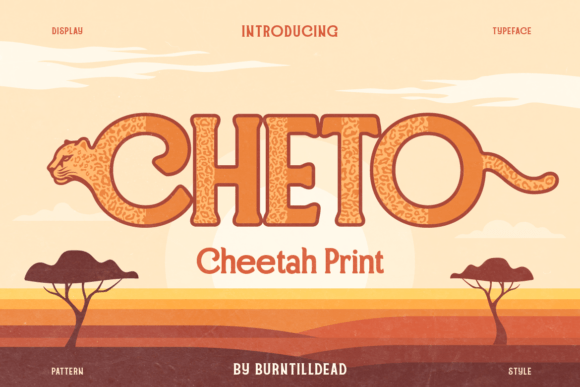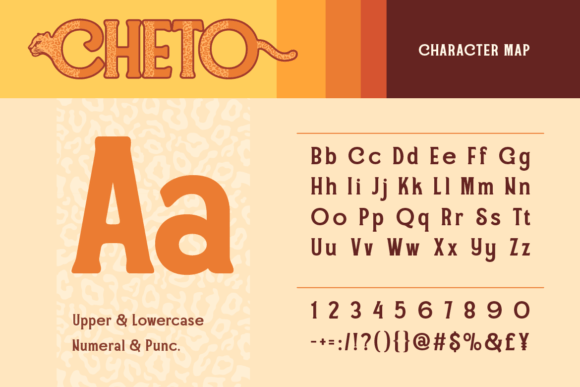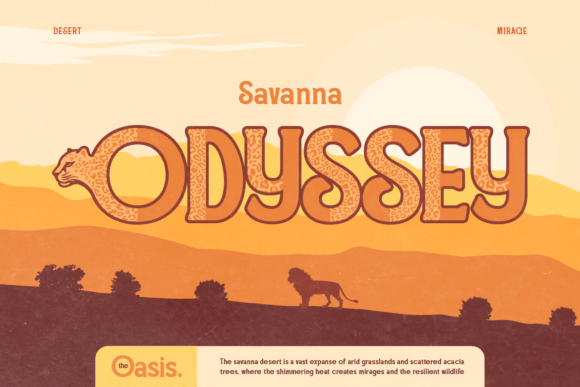
Introduction to Cheto Font
Let’s roar with Cheto, a font with cheetah pattern and anatomies in every letter.
Cheto embodies the spirit of the wild through its distinctive and adventurous design perfect for creating impactful visual statement Cheto has two unique alternate styles with heads and tails of cheetah.